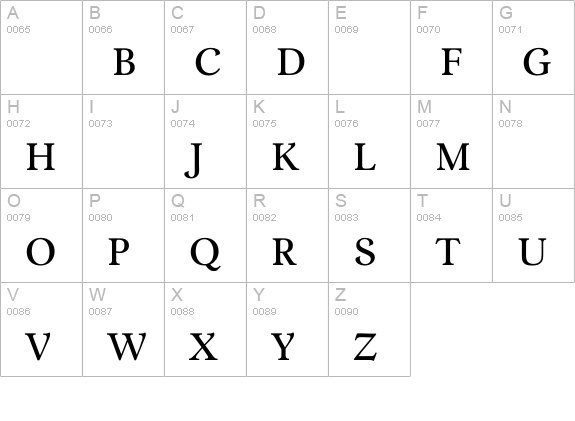
LombaMed Font Details
LombaMed is a beautifully crafted font that exudes elegance and sophistication. Its sleek lines and modern design make it perfect for a wide range of projects, from branding to editorial design. The versatility of LombaMed allows it to seamlessly blend into any project, adding a touch of class and style. What sets LombaMed apart is not only its aesthetic appeal but also the fact that it is available for free. Yes, you read that right – this stunning font can be downloaded at no cost from FontsMarket.com. Whether you are a seasoned designer looking to add a new font to your collection or a beginner searching for the perfect typeface for your project, LombaMed is the ideal choice. With its clean and crisp letterforms, LombaMed is sure to make a statement in any design. So why wait? Head over to FontsMarket.com and download LombaMed today to elevate your projects to new heights.